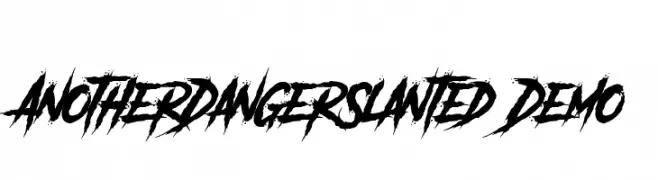
Another Danger Slanted - Demo Font
Font by The Branded Quotes
A bold, slanted font with jagged edges and a dynamic, energetic style.
A bold, slanted cursive font with a playful and whimsical style.
Gesture Slant BRK Font
Font by www.aenigmafonts.com
A bold, slanted font with sharp, angular edges and consistent thickness.
Channel Slanted 2 Font
Font by Mans Greback - www.mawns.com